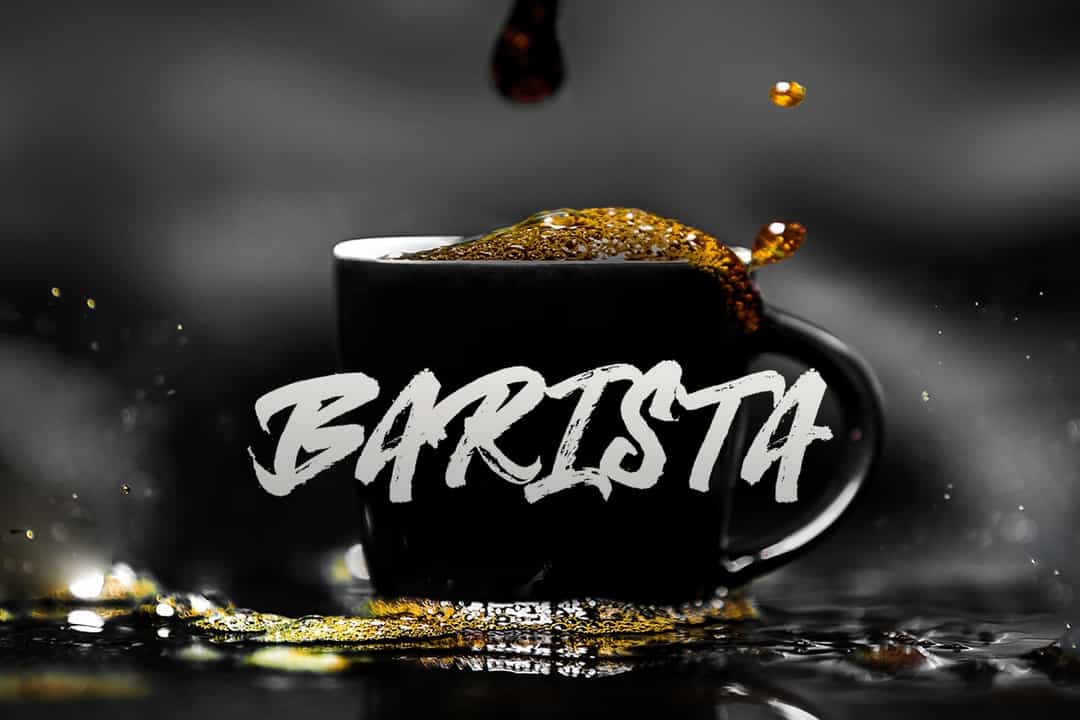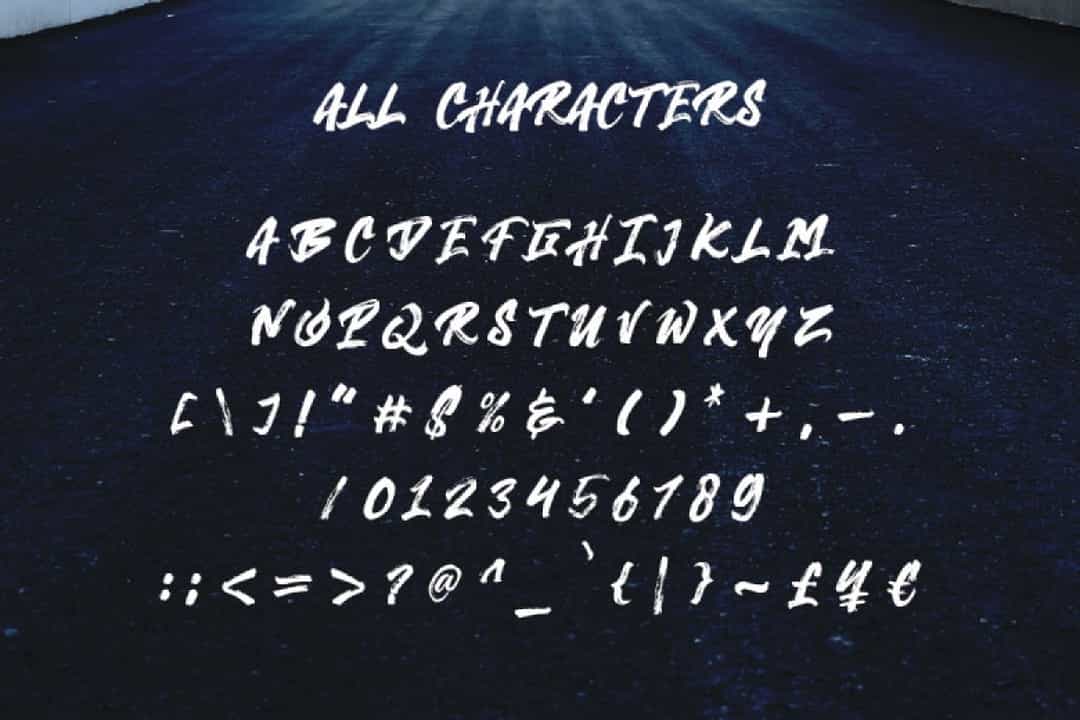
Hypetype is an elegant font in the painterly style. It can complement a large number of design products, starting from the headings, the branding of wedding invitations, the signature designs and signatures, logos, labels and so on!